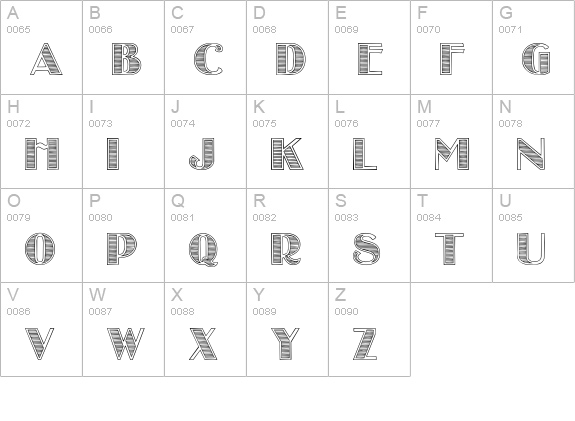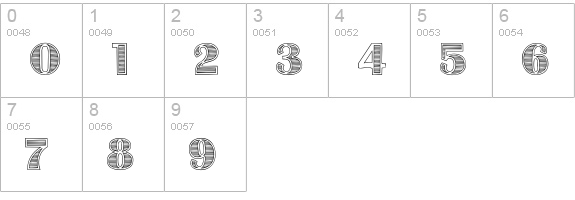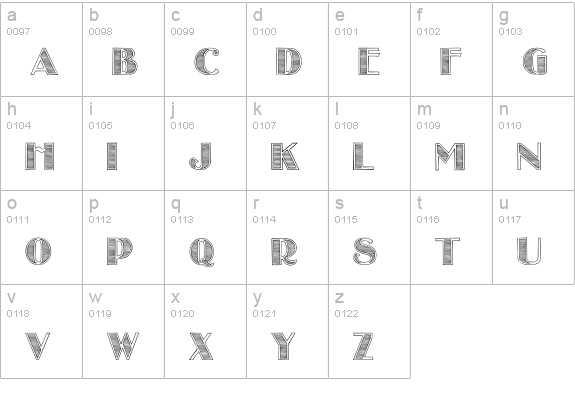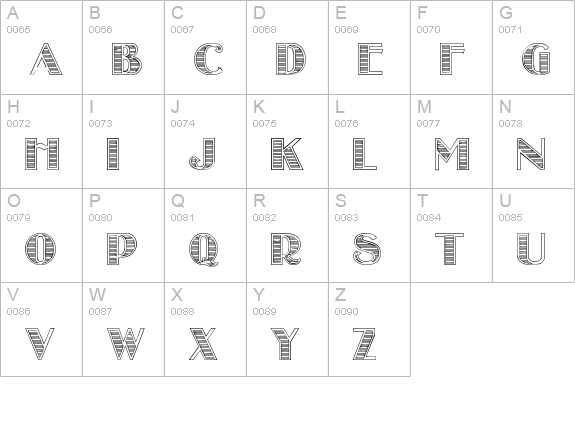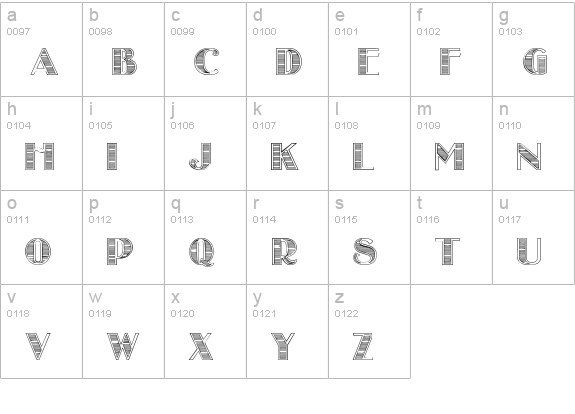
StripesCaps Font Details
StripesCaps font is a stylish and eye-catching typeface that combines the classic look of stripes with a modern touch of capital letters. The unique design of this font makes it perfect for adding a bold and dynamic element to your projects. Whether you're creating posters, logos, or social media graphics, StripesCaps font will surely make your text stand out. The best part about StripesCaps font is that it is completely free to download at FontsMarket.com. This means you can easily access this font and use it in your personal and commercial projects without any restrictions. So why wait? Add a touch of creativity and sophistication to your designs with the striking StripesCaps font today!